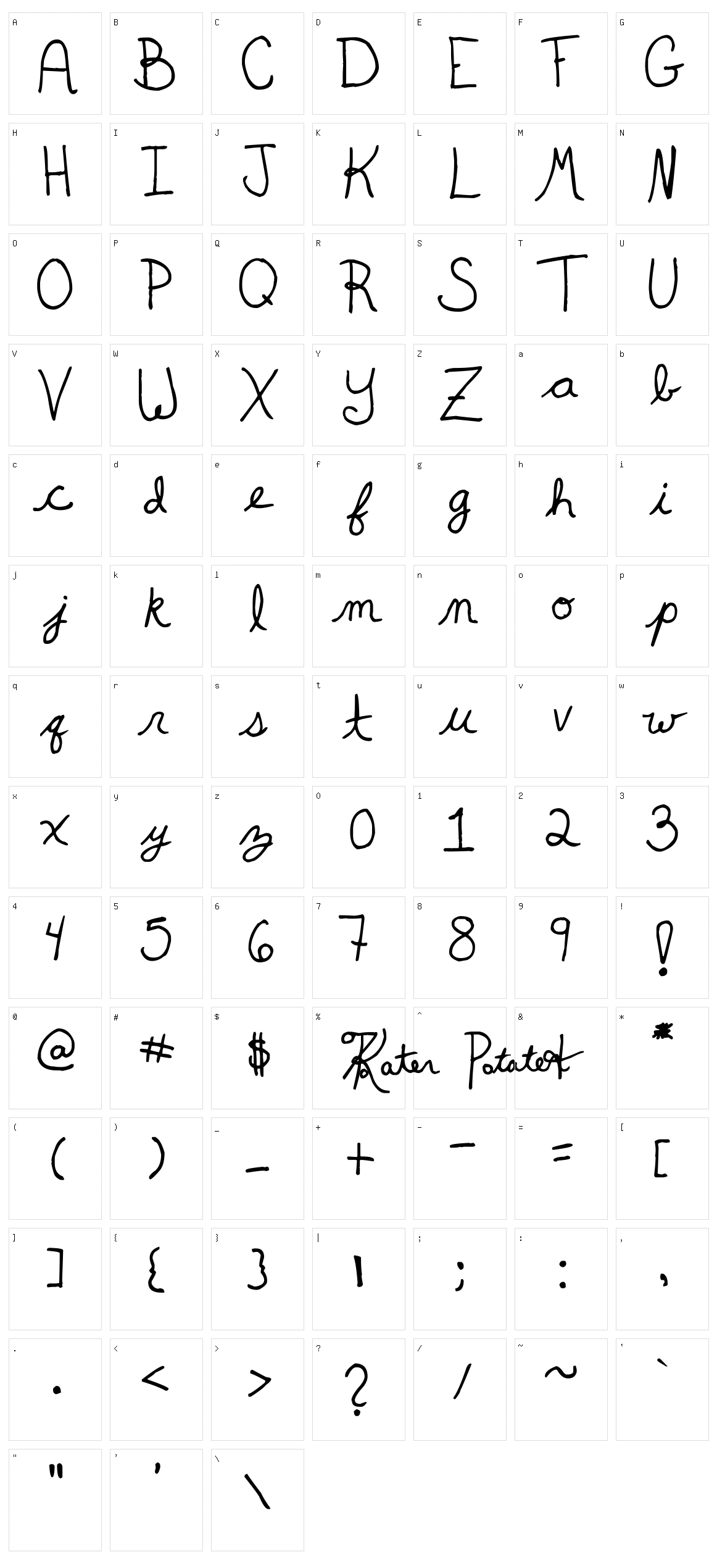
The free font Kater Potater is carefully designed by Kate Elizabeth, showcasing a thoughtful balance of creativity and usability and falls under the Script font style. When you download the ZIP file, it contains only 29.39 KB of font files, making it lightweight and quick to download. Please review the license details below to understand permitted usage and distribution rights. If license information is not available, we recommend using this font for personal projects only or contacting the author directly for commercial usage permissions.